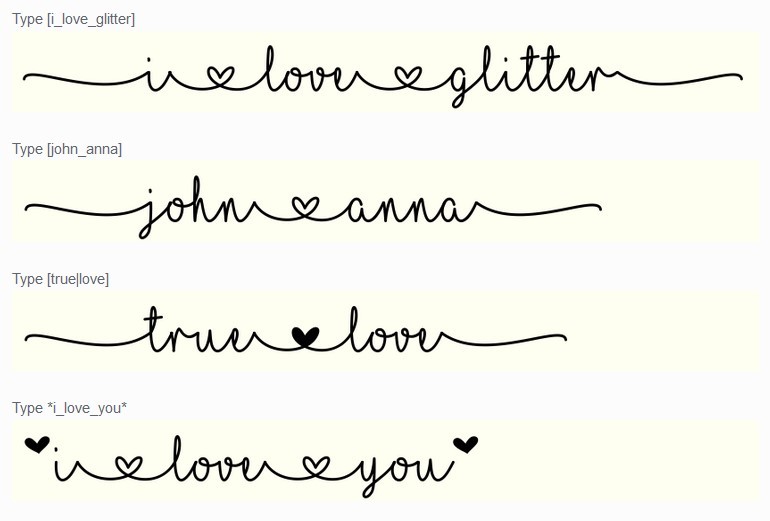
Mf I Love Glitter Font
Mf I Love Glitter Font is recognized for its unique embroidery feature and is highly regarded in the design community, often compared to the elegance of the butler font. This font can enhance your writing skills and make them more appealing.